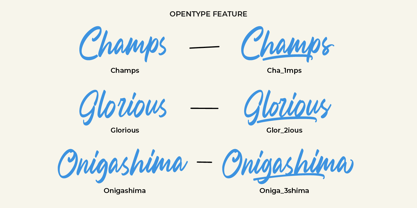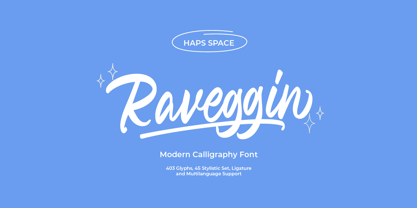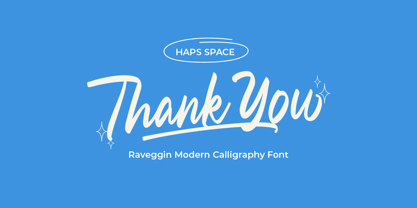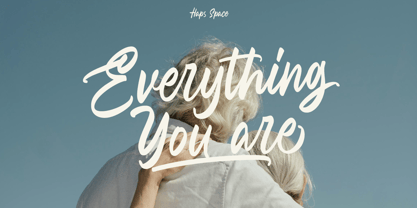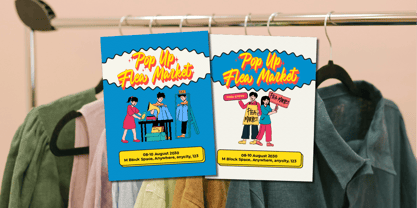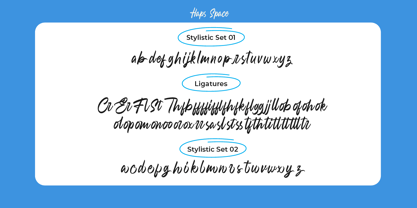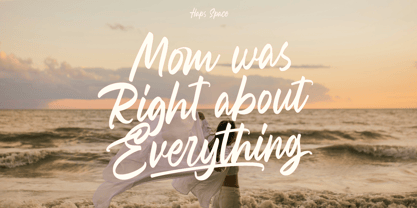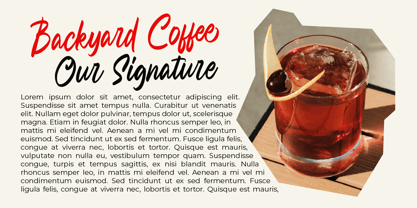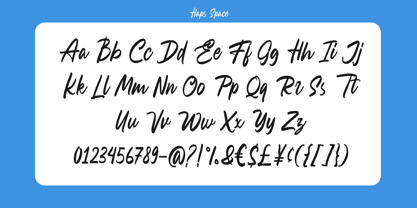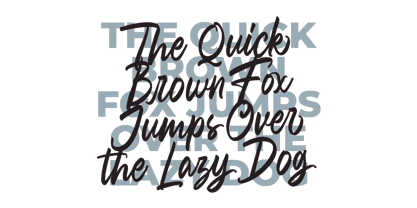
Raveggin Script
by Haps Space
The Raveggin Script Font Family was designed by Haris Purnama Putra, Egi Ahmad Mufid and published by Haps Space. Raveggin Script contains 1 styles. More about this family
Ravvegin Calligraphy Font is a Playful Script comes with alternatives and ligatures, helps to create stunning Posters, Branding, Tshirt, Social Media Graphics and much more.
Designers: Haris Purnama Putra, Egi Ahmad Mufid
Foundry: Haps Space